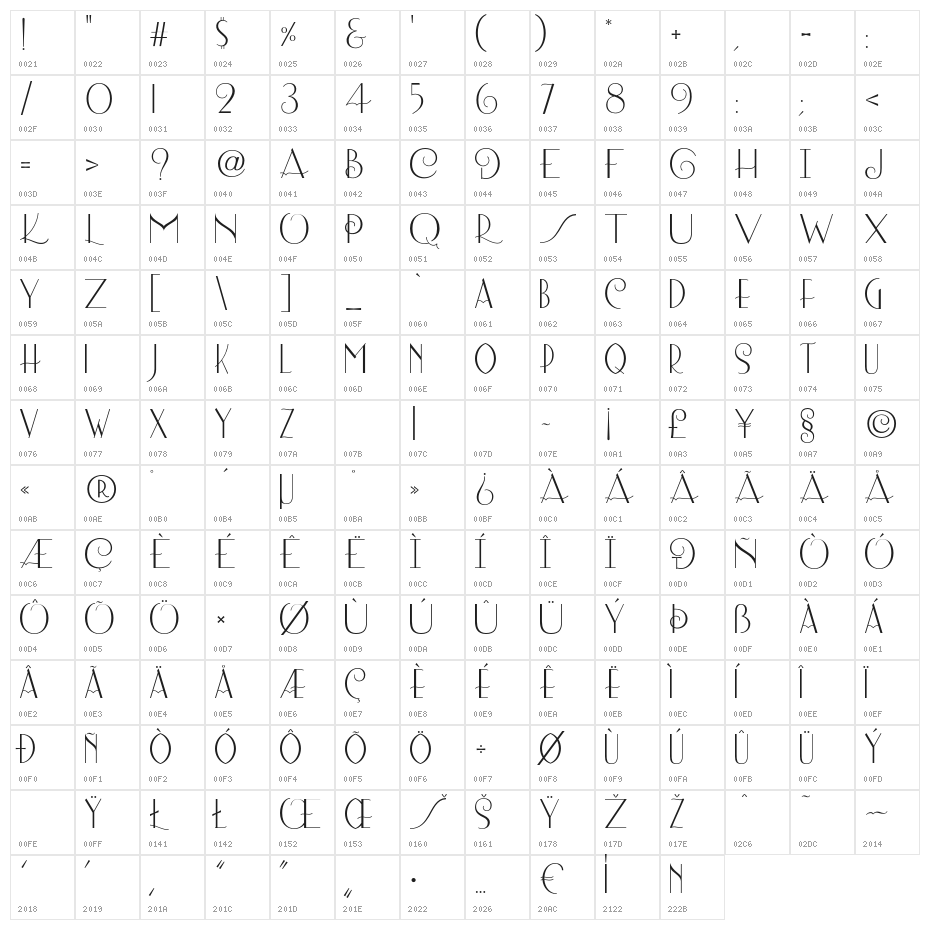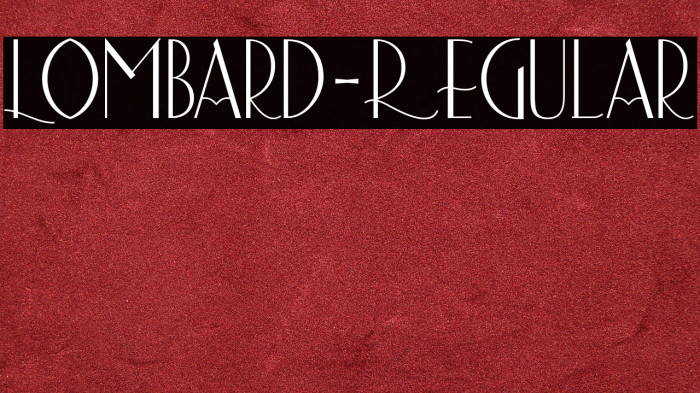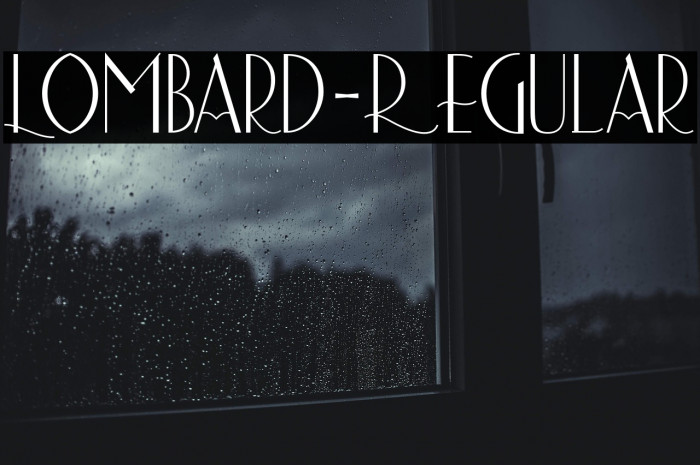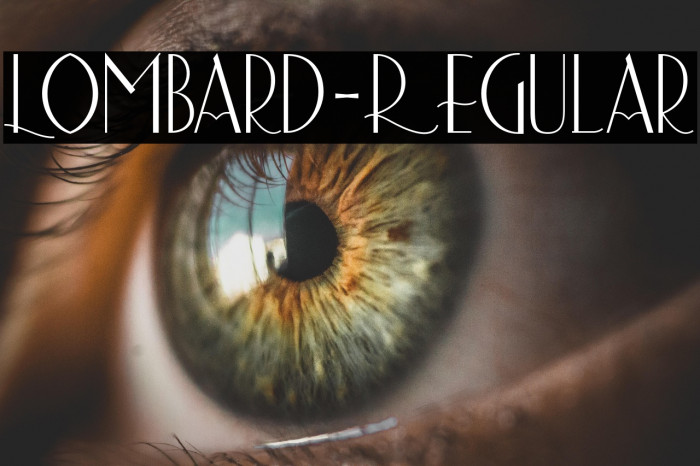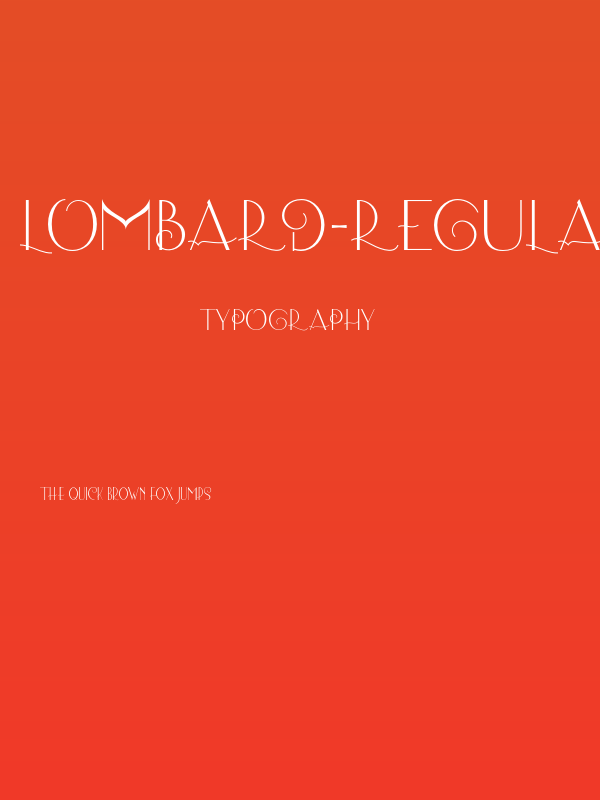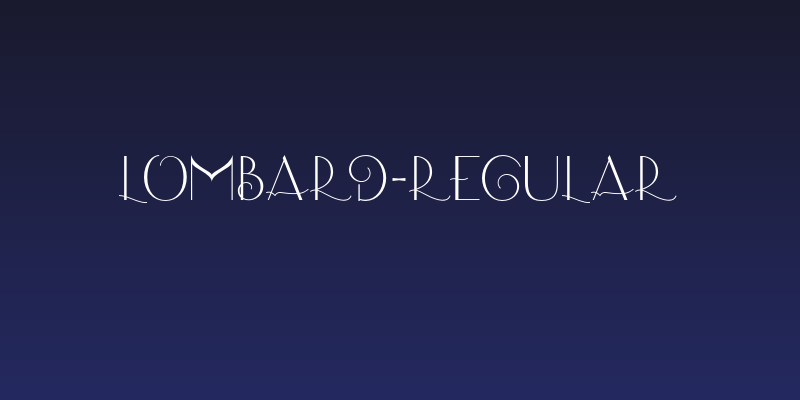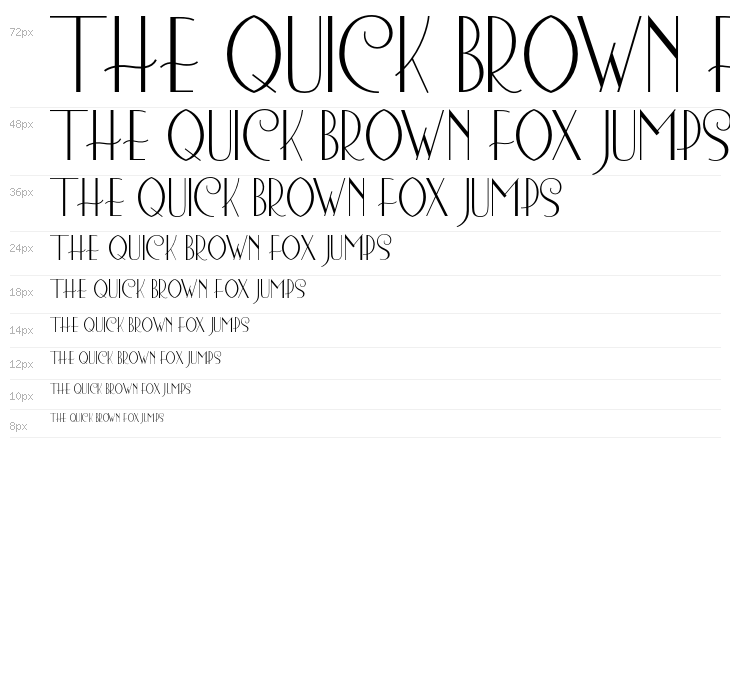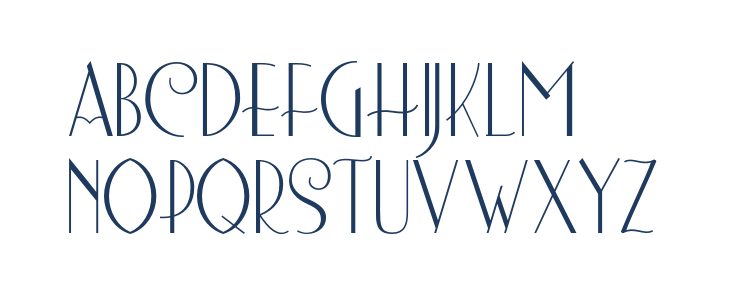
Lombard-Regular Font
Lombard-Regular Description
This font features an elegant and sophisticated design with a unique blend of Art Deco and modern elements. The uppercase letters are characterized by their tall, slender forms and distinctive geometric shapes, often incorporating subtle curves and flourishes. The lowercase letters maintain a consistent style, offering a harmonious balance between straight lines and gentle curves. The numerals are equally stylish, with a consistent height and a touch of flair that complements the overall aesthetic. Special characters are thoughtfully designed, maintaining the font's cohesive look. This typeface exudes a sense of luxury and refinement, making it ideal for projects that require a touch of elegance.
| Use Case | Logos, Headlines, Invitations |
| Proposed Projects | Ideal for luxury branding, wedding invitations, high-end product packaging, and editorial design. |